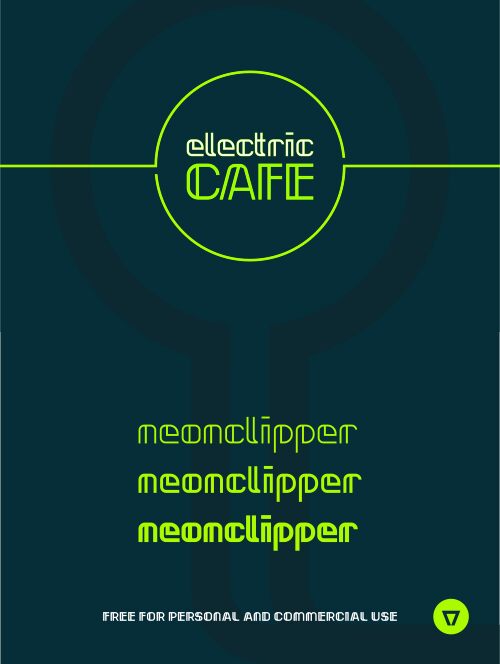
Neonclipper is a modular experimental font. Good for signs, posters, flyers, etc, or anywhere you need unique looking font as support for your main text font.
Neonclipper
NimaVisual: Neonclipper: 2016
Neonclipper Bold